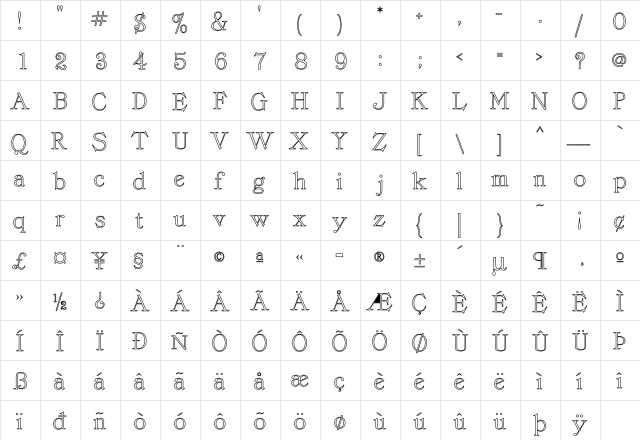
ProvLite Ho Regular
Design Context for ProvLite Ho Typeface
ProvLite Ho takes a measured approach to typography — its balanced proportions and neutral character make it a reliable workhorse for both digital and print work.
Pro Tip: Use ProvLite Ho in both headline and body roles to test its range before committing to a single application.